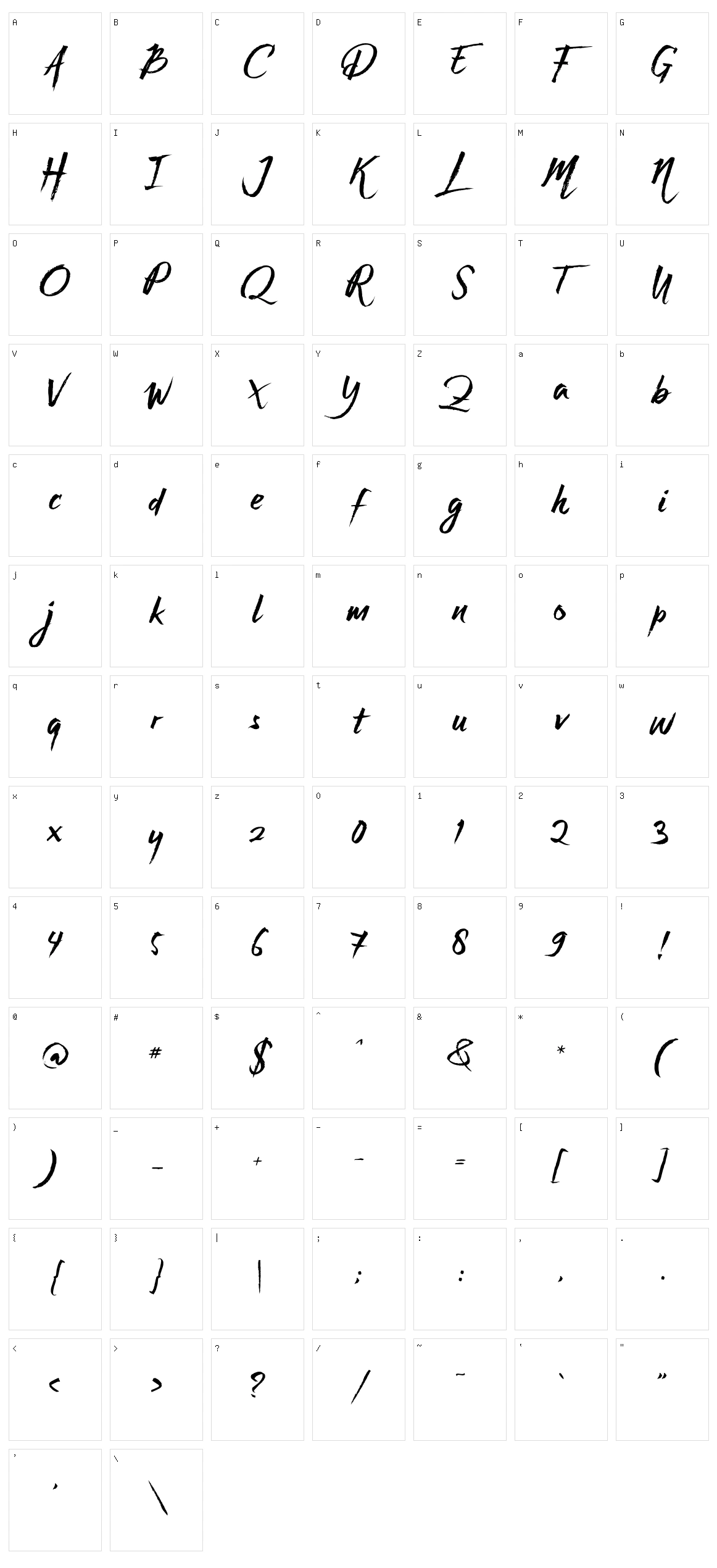
The free font Native Land is carefully designed by Get Studio, showcasing a thoughtful balance of creativity and usability and falls under the Script font style. When you download the ZIP file, it contains only 56.29 KB of font files, making it lightweight and quick to download. Please review the license details below to understand permitted usage and distribution rights. If license information is not available, we recommend using this font for personal projects only or contacting the author directly for commercial usage permissions.